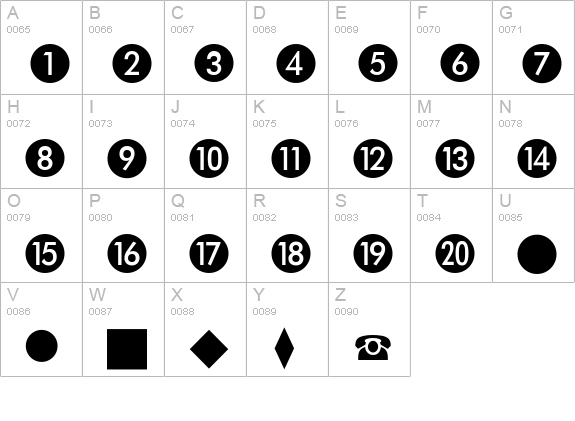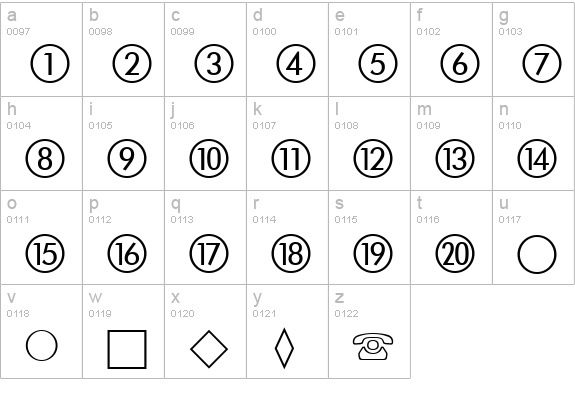
Abacus Two SSi Font Details
Abacus Two SSi font is a modern and sleek typeface that exudes sophistication and elegance. Its clean lines and sharp edges make it perfect for a wide range of design projects, from branding to editorial design. The balanced proportions and unique letterforms of Abacus Two SSi font give it a timeless appeal that is sure to make your designs stand out. The best part about Abacus Two SSi font is that it is completely free to download. You can easily access this stylish font at FontsMarket.com and incorporate it into your projects without any cost. Whether you're working on a personal project or a professional design, Abacus Two SSi font offers versatility and style that will elevate your work to the next level. Download it today and start creating stunning designs with this fabulous font!